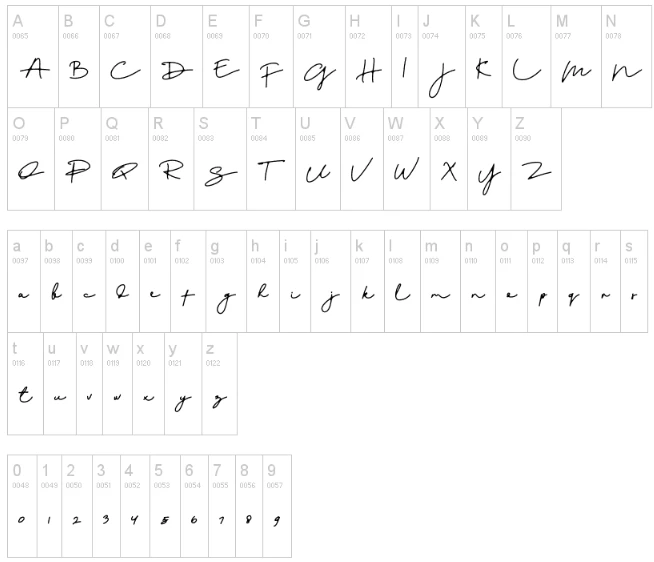
Dream Only, a delightful script and handwritten font, is now available. It was created by Andika Fez, who also shares it. Dream Only is a handwritten and script font that lets us design whatever style we choose. It features a free-flowing script font in an attractive and contemporary manner. Furthermore, this typeface provides lovely pen movement harmony for a variety of design projects.
The font supports the following languages: English, Khakas, Khalkha, Khanty, Kildin Sami, Komi-Permyak, Kurdish, Kyrgyz, Ladin, Latvian, Lithuanian, Lojban, Lombard, Low Saxon, Luxembourgian, Sami (Northern), Samoan, Sardinian (Sardu), Scots, Serbian, Serbian (Latin), Seychellois Creole, etc. Uppercase, Lowercase, Number, Punctuation, and Multilingual are just a few of the fantastic and vital qualities of the typeface. So go ahead and download it right now and give it a shot! The beautiful script and handwritten typeface can also be used successfully in initiative branding initiatives, homeware designs, product packaging, and as a beautiful text supplement on any background image.
It will look fantastic on logos and branding, wedding designs, social media posts, commercials, posters, and other similar projects. Because the typeface has such a professional feel to it, you may use it for any form of official work.
Designer Andika Fez